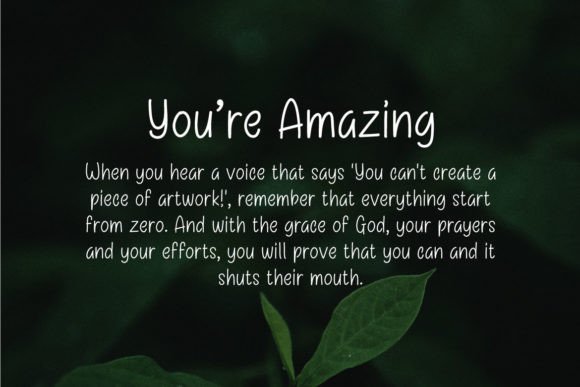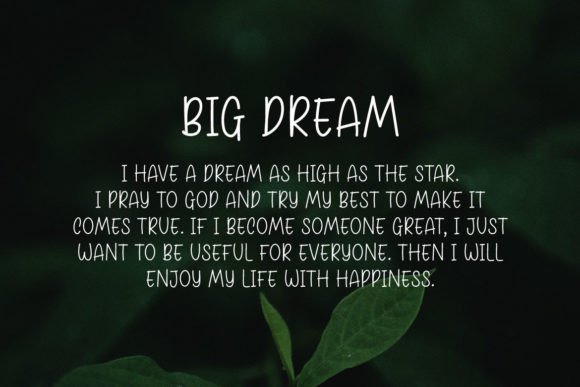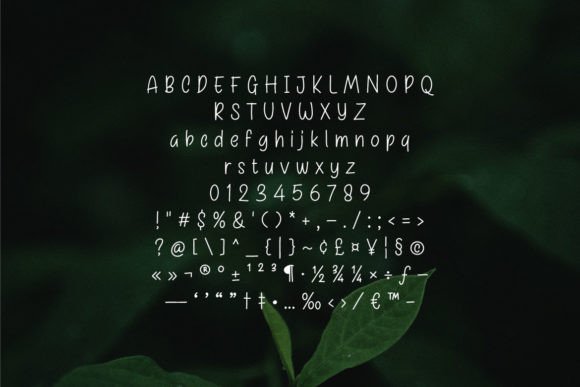
Binahong Font
Binahong is a modern minimalist handwritten font that brings a simple stylish look to your words. Binahong can be used in any work such as book titles, music covers, youtube titles, magazines, advertisements, content, movies, and many more.